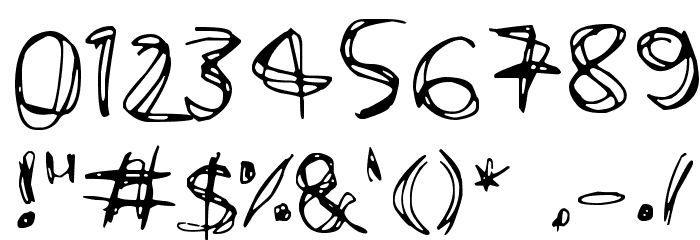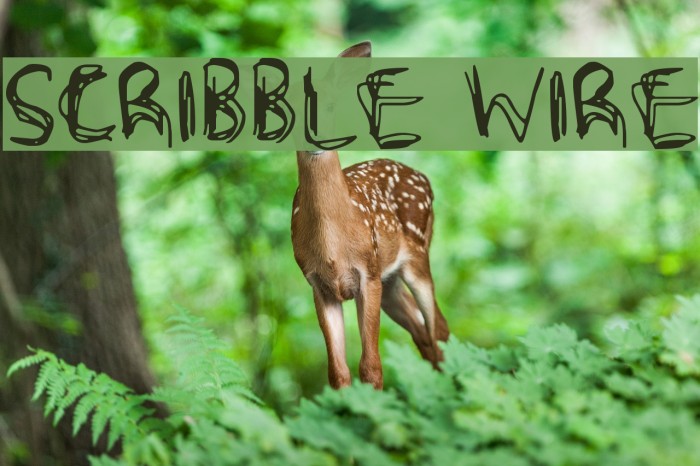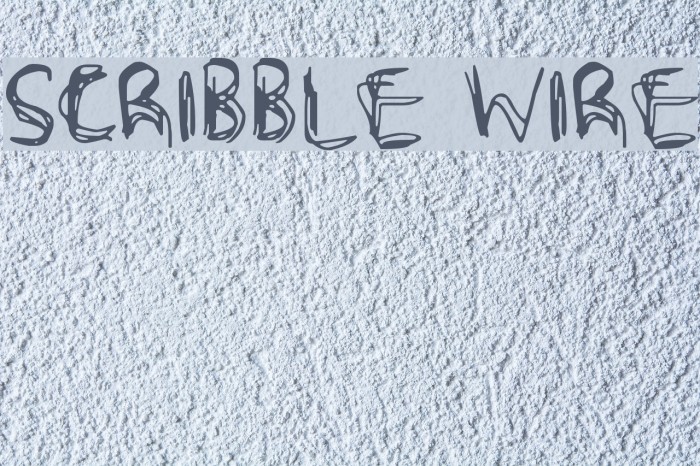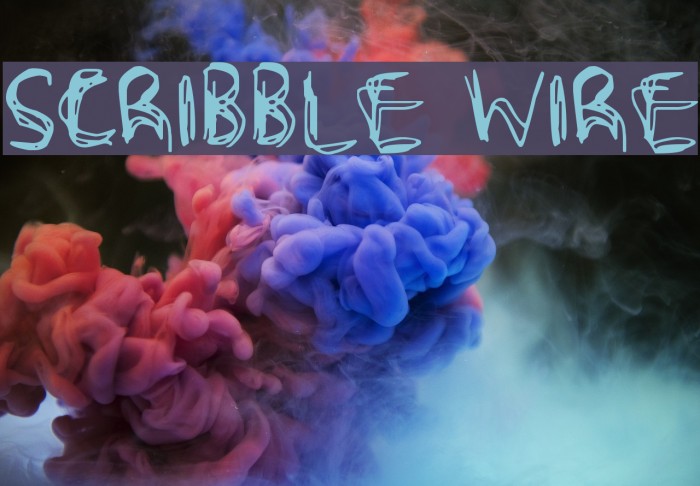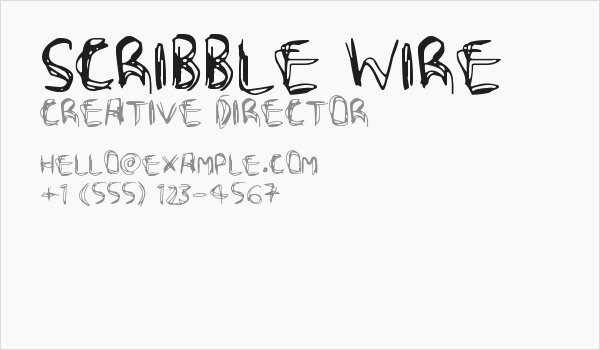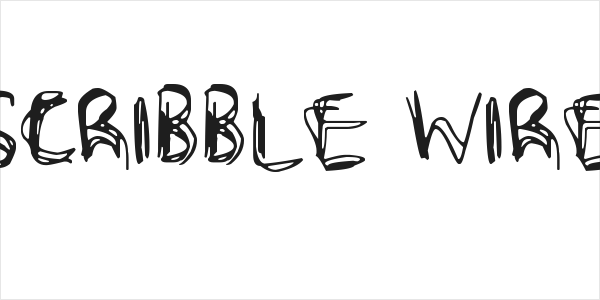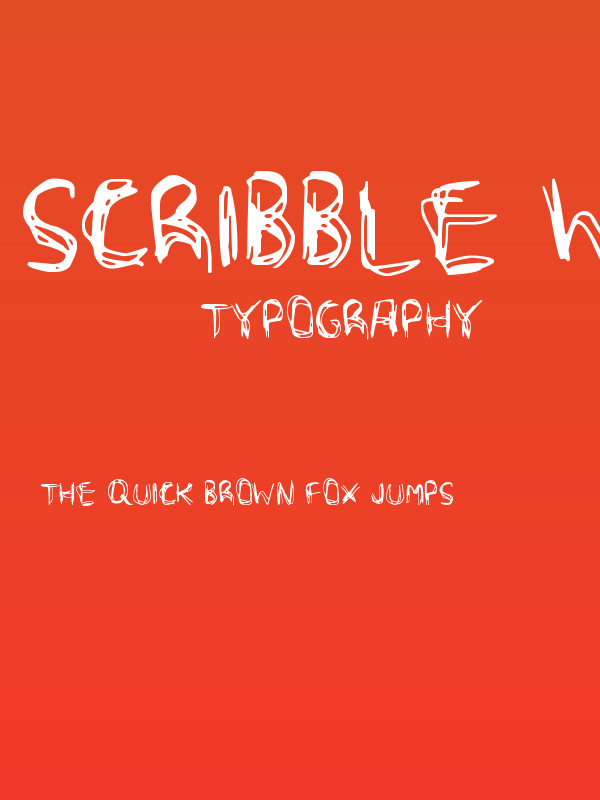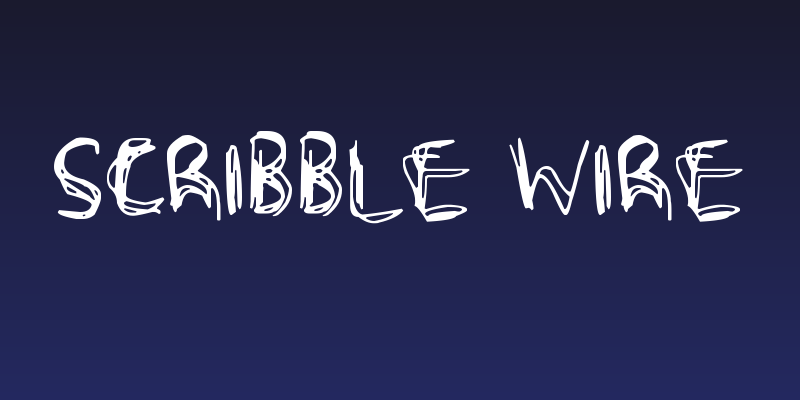
Scribble Wire Font
Scribble Wire Description
This font embodies a playful and chaotic aesthetic, reminiscent of hand-drawn sketches with a wire-like texture. Each character is uniquely crafted with irregular strokes and varying thickness, giving it an energetic and dynamic feel. The letters appear as if they were hastily scribbled, yet they maintain a consistent structure that ensures readability. The numbers and special characters follow the same whimsical style, adding a touch of creativity and spontaneity. This font is perfect for projects that require a bold and unconventional look, capturing attention with its artistic flair.
| Proposed Projects | Ideal for artistic posters, creative branding, children's book covers, and edgy graphic designs. |